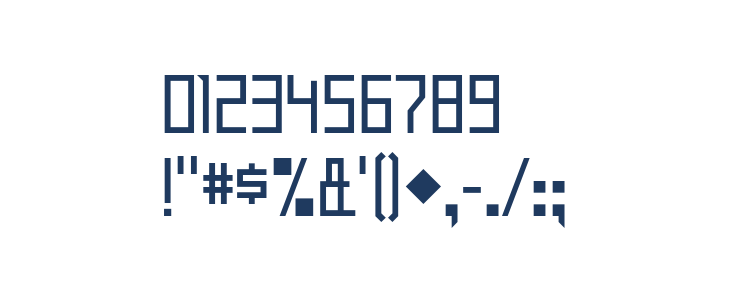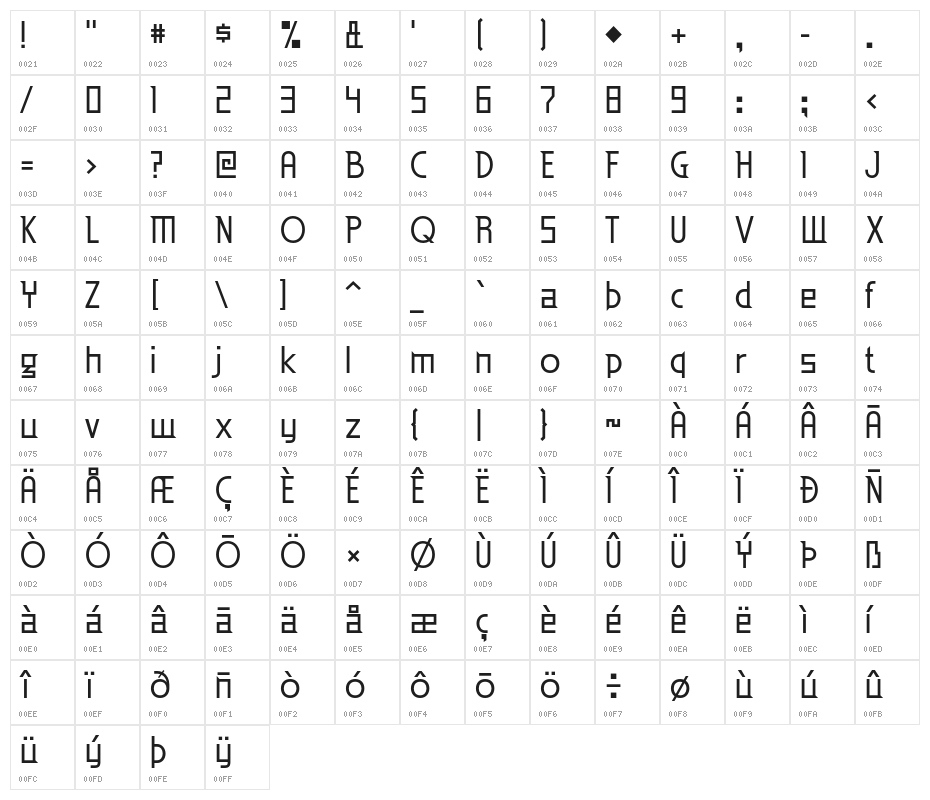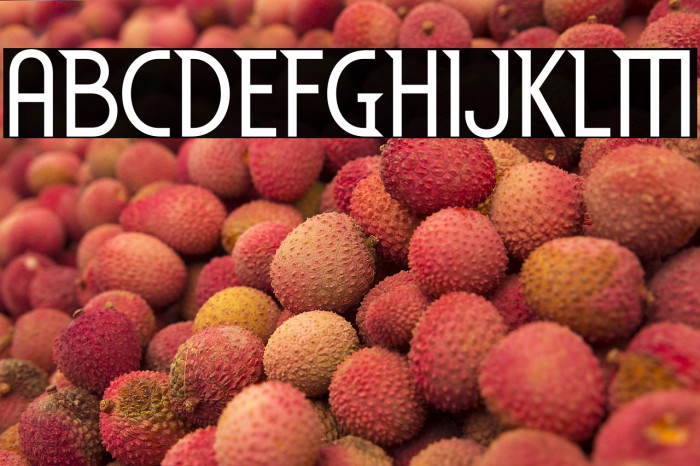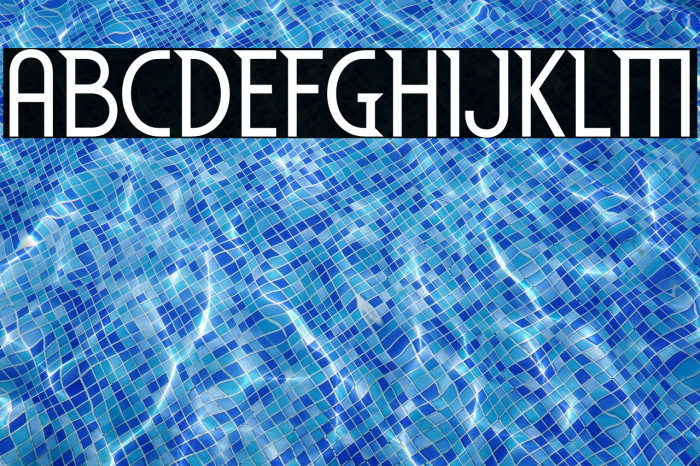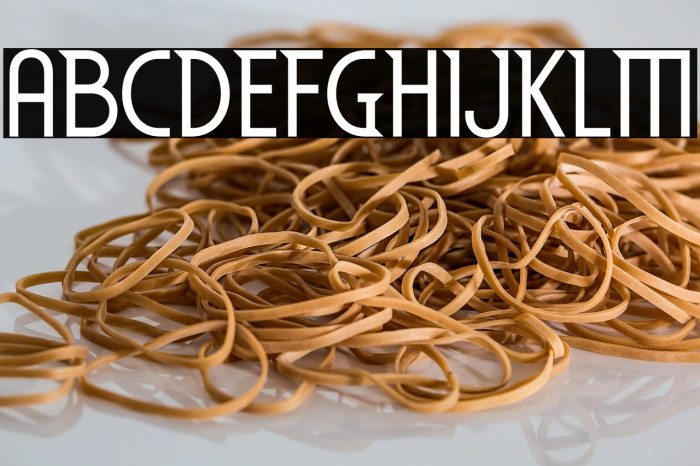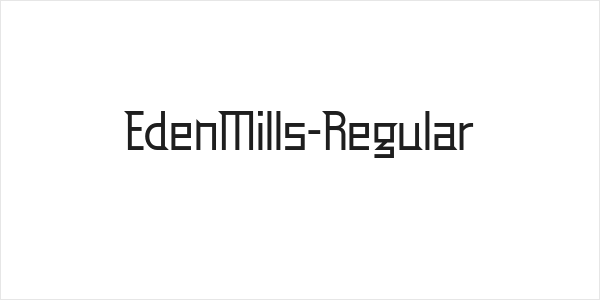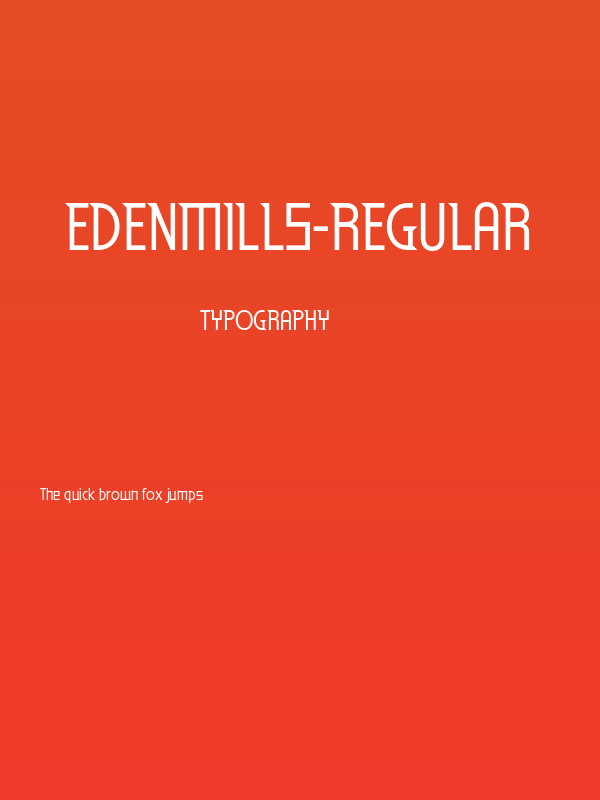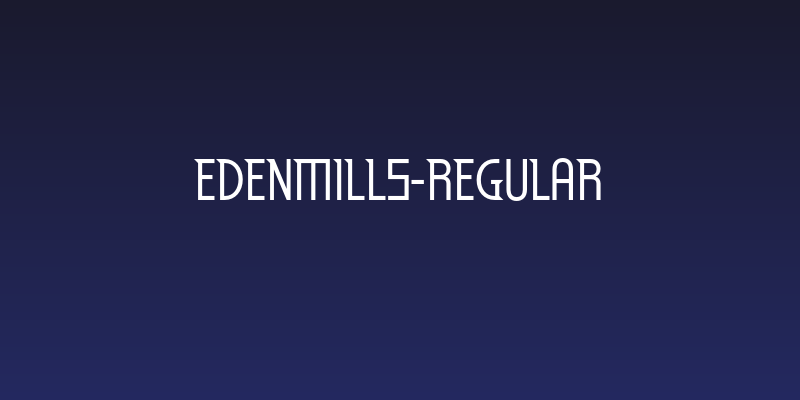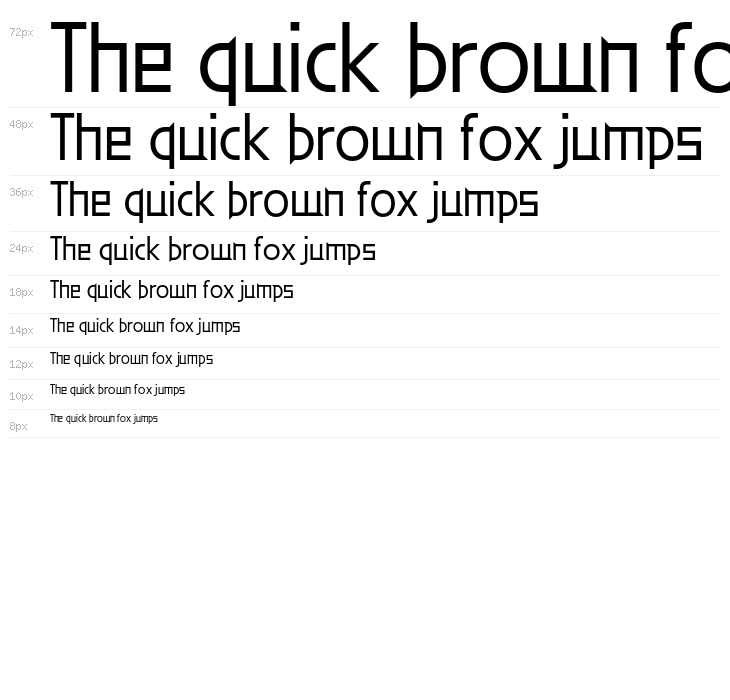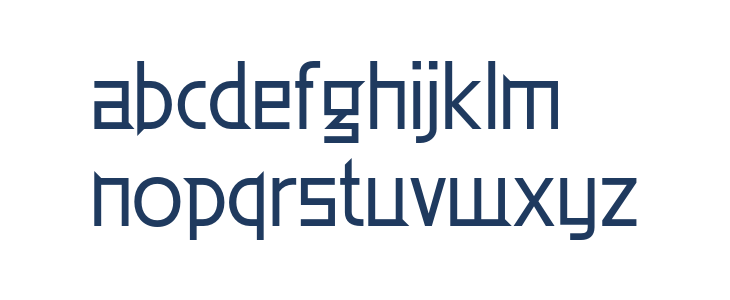
EdenMills-Regular Font
EdenMills-Regular Description
This font features a geometric and modern design with clean lines and sharp angles. The uppercase letters are bold and structured, while the lowercase letters maintain a consistent style with a slightly more compact form. The numerals are distinct and easy to read, matching the overall aesthetic. Special characters are designed to complement the alphabet with similar angular features. The font's uniformity and clarity make it suitable for various design applications, providing a contemporary and professional look.